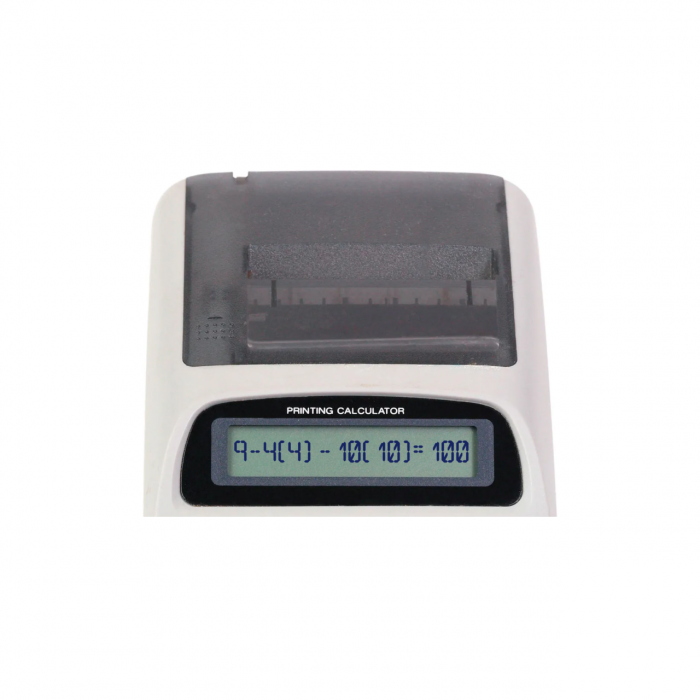
• More glyphs coming soon. Or not! Just plain Latin.
Segment Count: 38-Segment Display
/: Square Root
the unknown letter at the end is ℮ fyi.
the × sign is a dot for standard math/algebra
( and ) look alot like [ and ] but i like the og parenthesis so i put the ( and ) glyph in their corresponding symbol.
9-4(4)-10(10) =
9-4*4-10*10 =
9-16-100 =
(-7)-100 =
-107 =/= +100
i just put in a random equation and made the answer wrong on purpose